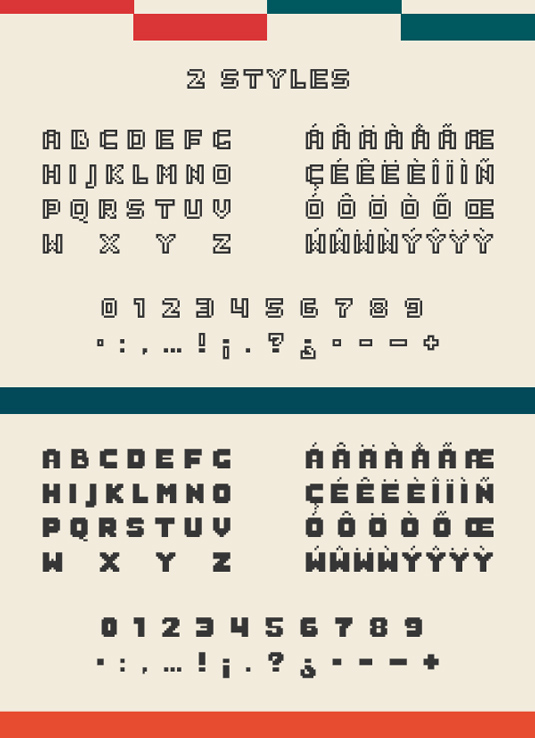
Font of the day: Sabo
Sabo by Philippe Moesch
Today's font of choice is this pixel-style design, Sabo, by graphic designer Philippe Moesch. Available in two styles - inline and filled - Sabo is great for any retro arcade-themed design.